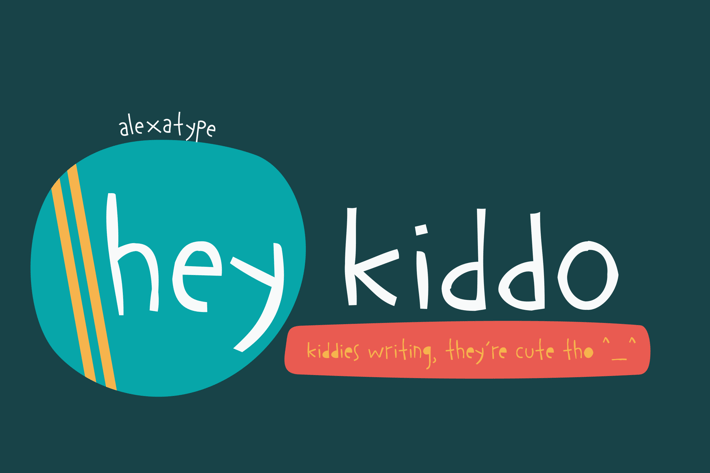
Hey Kiddo - Children Font
Hey Kiddo is a quirky, playful handwritten font designed to bring warmth, creativity, and fun to any design. With its imperfect strokes and lively energy, this font is perfect for children’s books, playful branding, invitations, and school materials. Whether you're designing storybook titles, kids’ party invitations, or fun packaging, Hey Kiddo adds a spontaneous, friendly touch to your projects.
Key Features
Handwritten & Playful Style – Captures the innocence and energy of childhood.
Perfect for Kids & Learning Themes – Ideal for educational materials, playful posters, and friendly branding.
Quirky & Fun Letterforms – Gives a casual, lively personality to text.
Optimized for Digital & Print – Works beautifully for greeting cards, stickers, and social media graphics.
Hey Kiddo is perfect for teachers, children’s brands, and creatives looking for a fun, handwritten touch. Its whimsical, bouncy letterforms make school projects, book covers, and marketing materials feel engaging and full of joy. Whether you’re crafting a cheerful classroom display, a lighthearted logo, or a colorful social media post, Hey Kiddo ensures your typography feels playful and inviting.